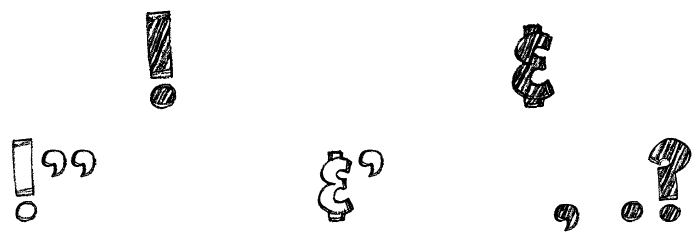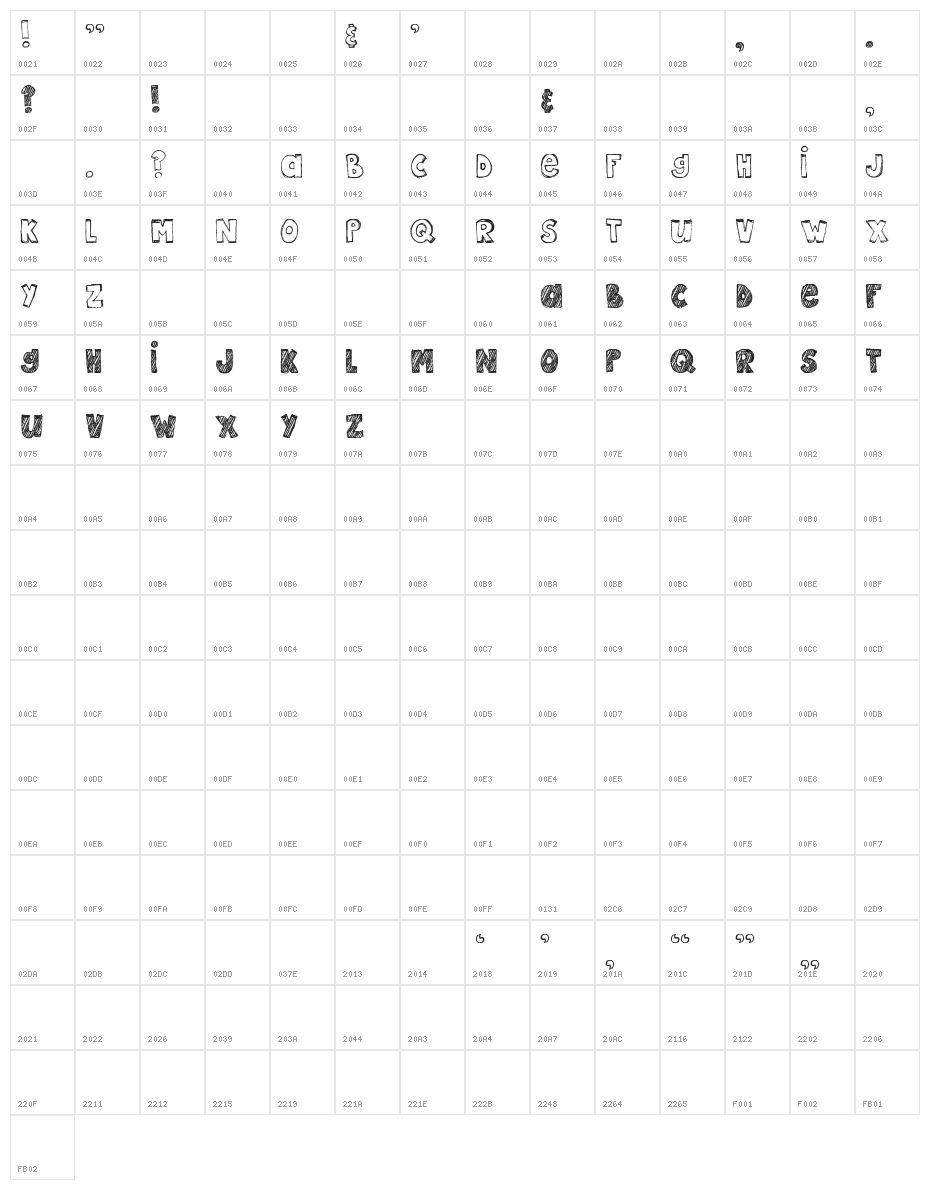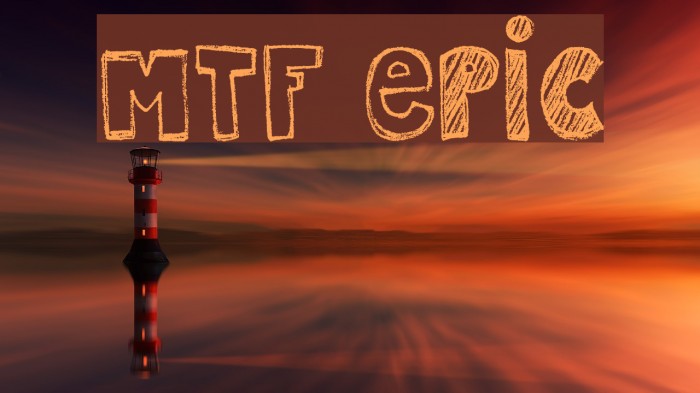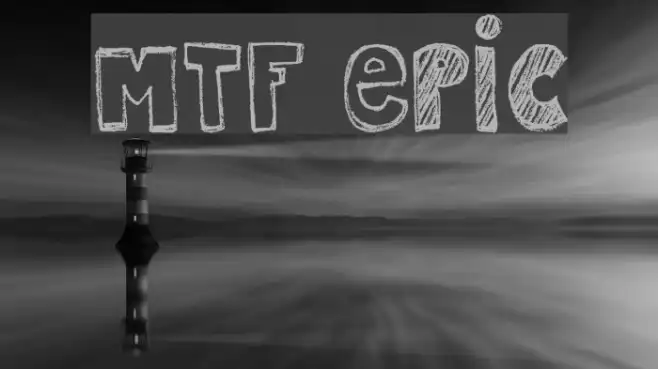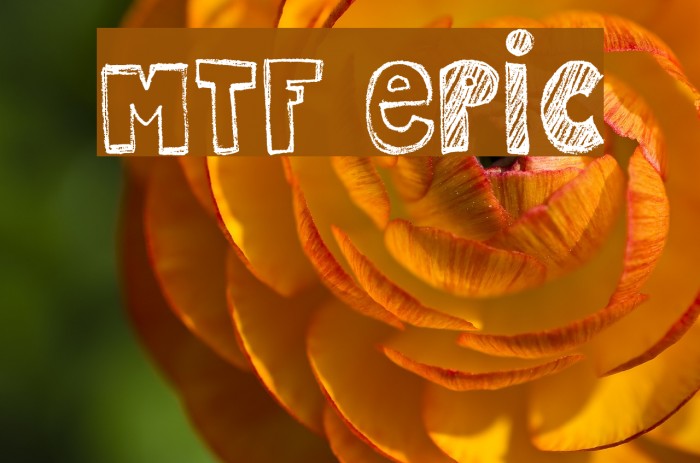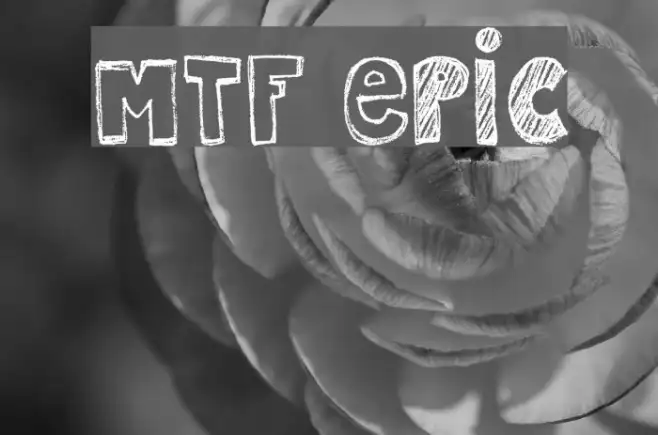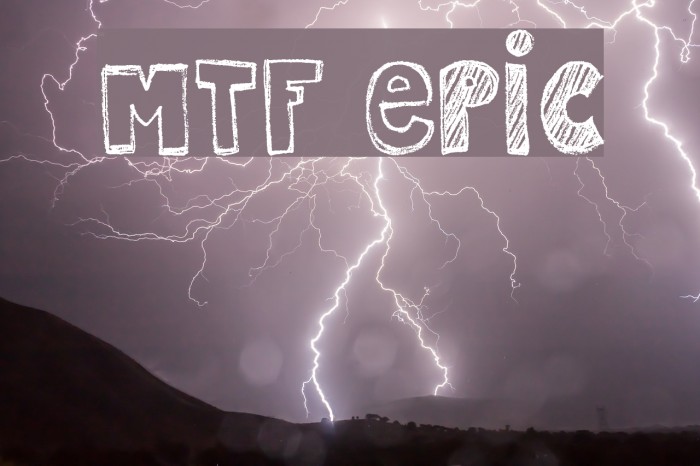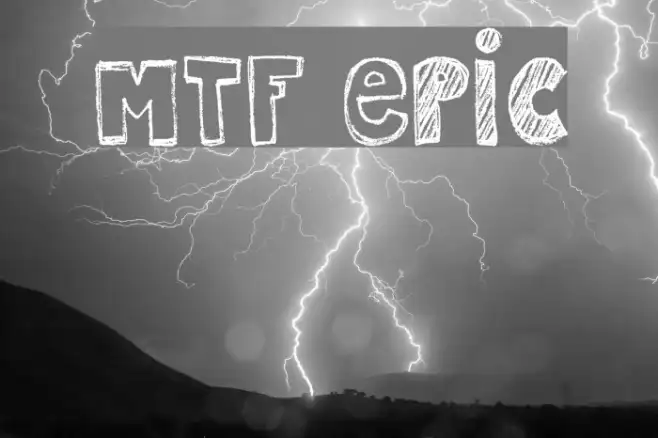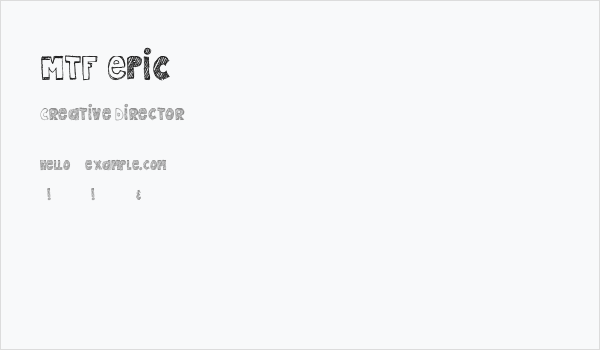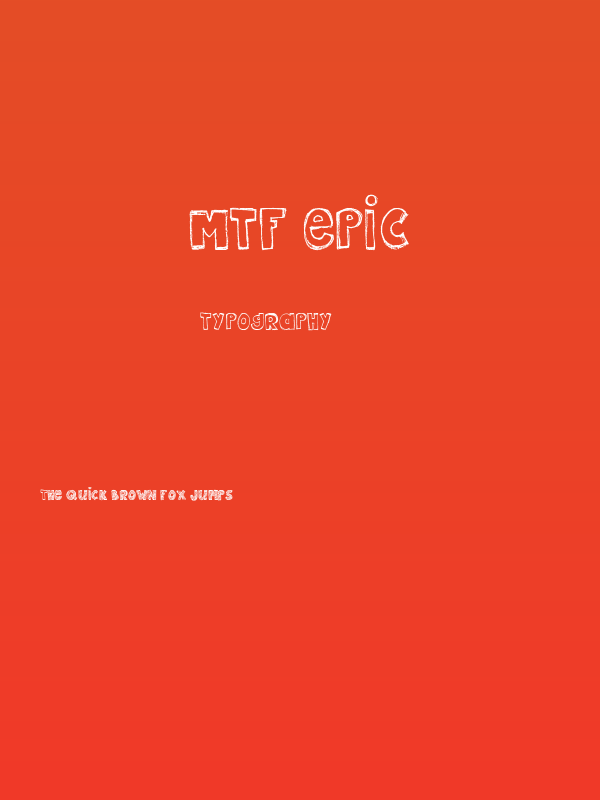
MTF Epic Font
MTF Epic Description
This playful and bold font features a hand-drawn, sketch-like style that adds a whimsical and artistic touch to any design. The characters are outlined with a thick, uneven stroke, giving them a textured and dynamic appearance. The uppercase and lowercase letters maintain a consistent style, with rounded edges and a slightly irregular form that enhances the casual, fun aesthetic. The numbers and special characters are equally expressive, making this font suitable for creative projects that require a lively and informal vibe. Its unique style is perfect for capturing attention and conveying a sense of creativity and spontaneity.
Proposed ProjectsIdeal for children's books, comic strips, playful branding, and creative posters.